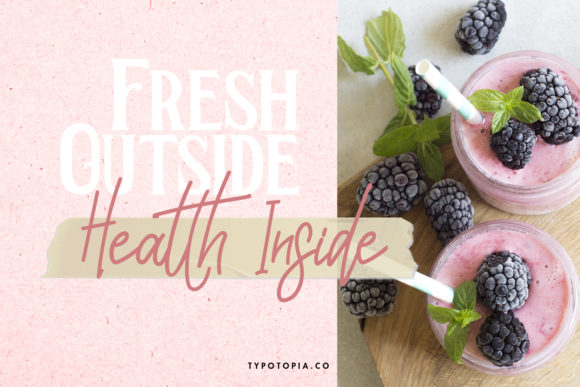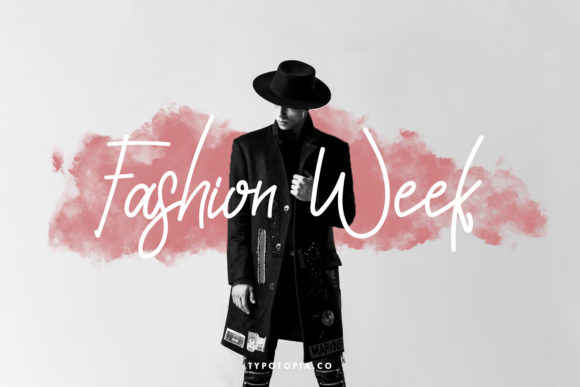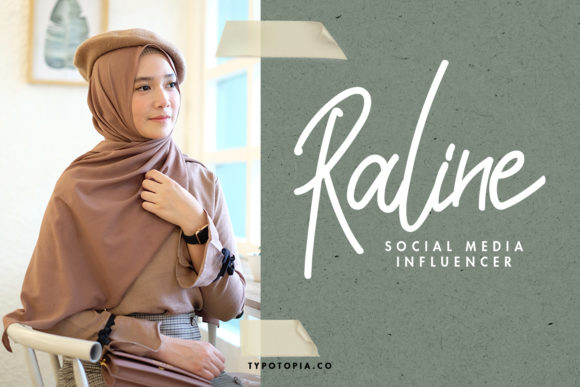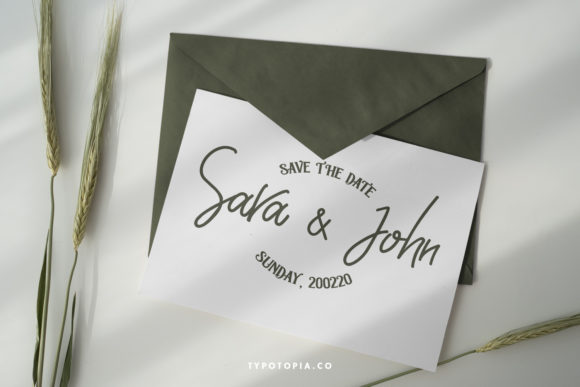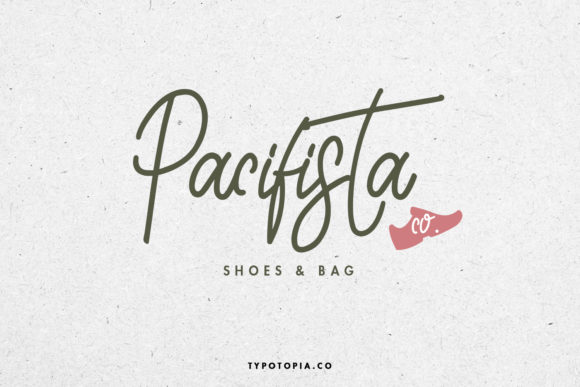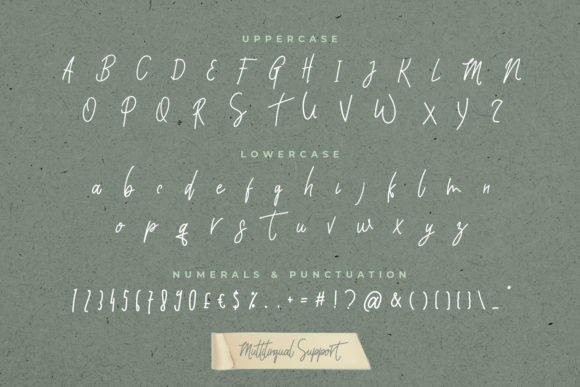
Introducing Foxtail Font: Elevate Your Designs with Elegance
Are you on the lookout for a font that adds a touch of sophistication and elegance to your projects? Look no further than Foxtail Font, a stunning handwritten font that is sure to capture your heart. With its flowing lines and timeless style, Foxtail is the perfect addition to your design arsenal.
The Charm of Foxtail Font
Foxtail Font is a beautifully crafted handwritten font that exudes elegance and refinement. Its unique, flowing lines give it a distinct and sophisticated look that is sure to make your designs stand out. Whether you’re working on a branding project, a wedding invitation, or a social media graphic, Foxtail Font is the perfect choice.
Key Features of Foxtail Font
• Elegant and Refined: Foxtail Font boasts an incredibly elegant and refined style that is perfect for designs that require a touch of sophistication.
• Flowing Lines: The font’s flowing lines give it a beautiful, organic feel that is sure to capture your audience’s attention.
• Timeless Style: Foxtail Font’s timeless style ensures that your designs will remain relevant and stylish for years to come.
• Highly Versatile: This font is perfect for a wide range of design projects, from branding and advertising to packaging and more.
Why Choose Foxtail Font?
With so many fonts to choose from, why should you choose Foxtail Font for your next project? Here are just a few reasons:
• Unique Style: Foxtail Font’s unique style sets it apart from other fonts, ensuring that your designs will stand out from the crowd.
• Ease of Use: This font is incredibly easy to use, making it perfect for designers of all skill levels.
• Exceptional Quality: Foxtail Font is crafted with exceptional quality, ensuring that it will look great in any design.
Foxtail Font is a perfect choice for designers and crafters who are looking to add a touch of elegance and sophistication to their projects. Whether you’re creating:
• Branding Materials: Use Foxtail Font to create stunning logos, business cards, and more.
• Wedding Invitations: Add a touch of romance and elegance to your wedding invitations with Foxtail Font.
• Social Media Graphics: Use Foxtail Font to create eye-catching social media graphics that will capture your audience’s attention.
• Packaging Design: Add a touch of sophistication to your packaging design with Foxtail Font.
Get Creative with Foxtail Font
Foxtail Font is an incredibly versatile font that can be used in a wide range of design projects. Here are a few ideas to get you started:
• Pair it with Bold Fonts: Pair Foxtail Font with bold fonts for a striking contrast that will make your designs pop.
• Use it for Headings: Use Foxtail Font for headings and titles to add a touch of elegance and sophistication.
• Experiment with Colors: Experiment with different colors and textures to add depth and interest to your designs.
In conclusion, Foxtail Font is a stunning handwritten font that is sure to elevate your designs to the next level. With its elegant and refined style, flowing lines, and timeless design, Foxtail Font is the perfect choice for designers and crafters who are looking to add a touch of sophistication to their projects. So why wait? Fall in love with Foxtail Font and start creating spectacular designs today!